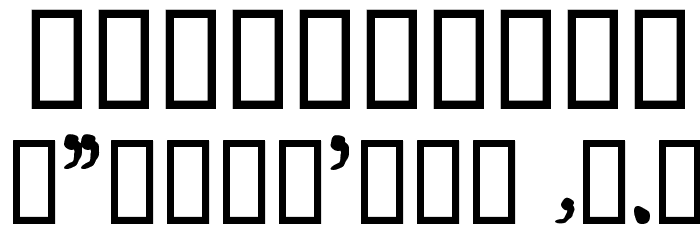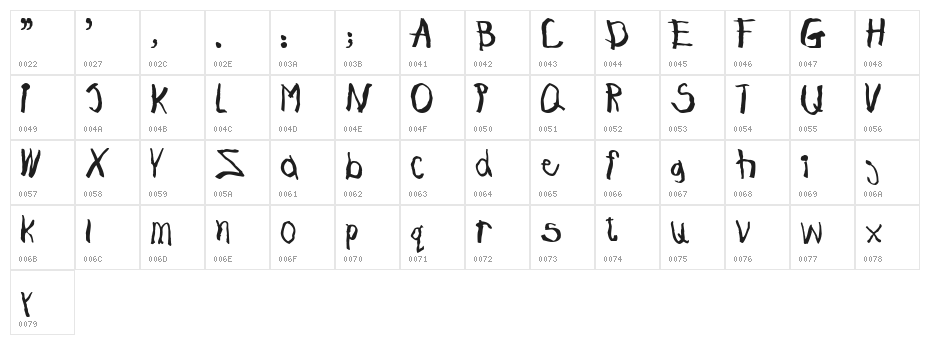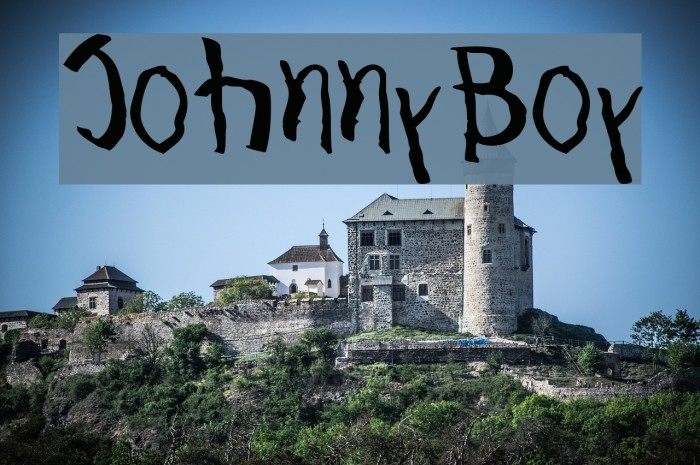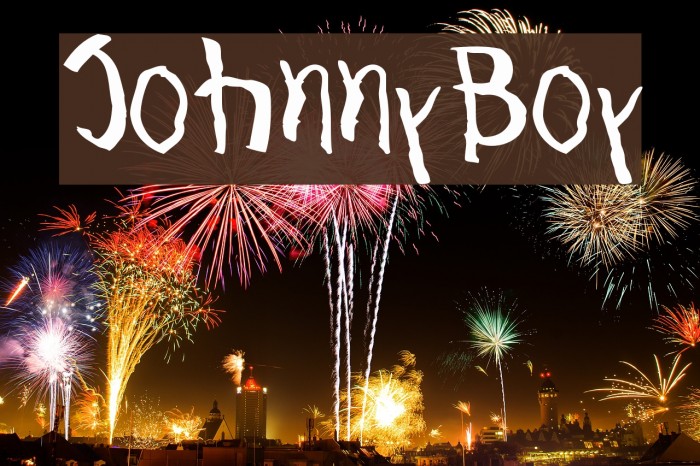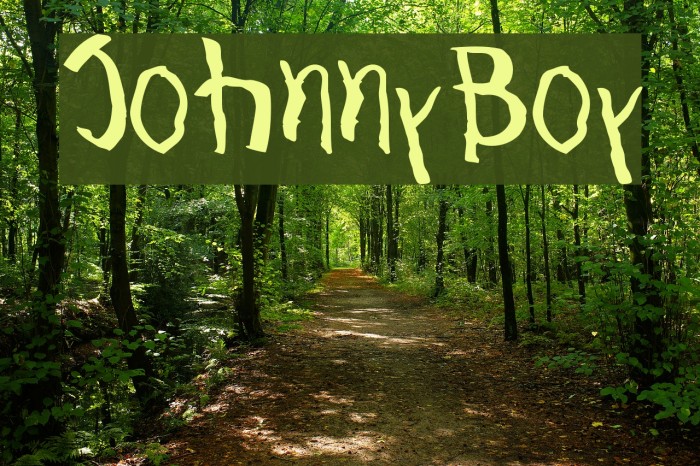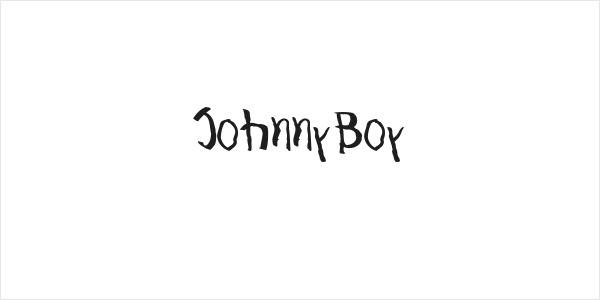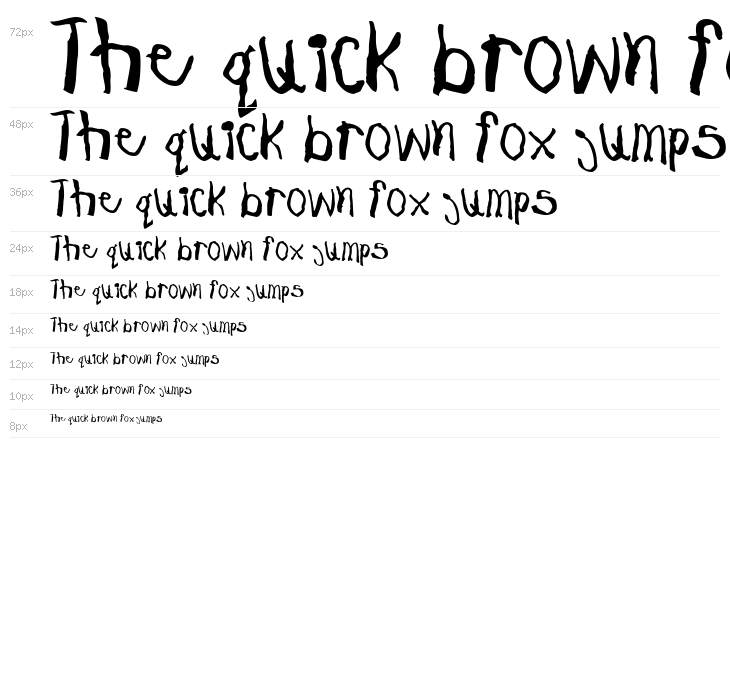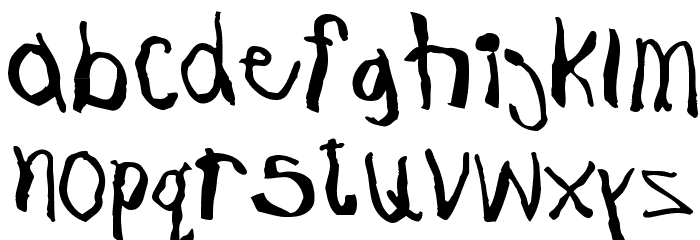
JohnnyBoy Font
JohnnyBoy Description
This font features a hand-drawn, expressive style with irregular strokes and a playful, artistic flair. The characters exhibit a dynamic, slightly chaotic appearance, with varying line thickness and a sense of movement. The uppercase letters are bold and prominent, while the lowercase letters maintain a consistent style, adding to the overall whimsical nature. The font's unique character is further emphasized by its uneven baseline and varied letter heights, creating a lively and energetic feel. The special characters and numbers follow the same artistic theme, making this font ideal for creative and unconventional projects.
| Use Case | Headlines, Logos, Artistic projects |
| Proposed Projects | Ideal for creative projects such as posters, album covers, artistic branding, and unique invitations. |